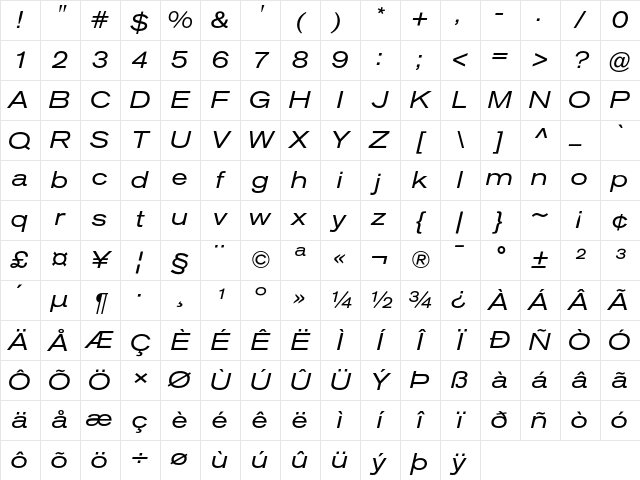
Akzidenz-Grotesk BQ Extended Italic
Style: Extended Italic
Design Context for Akzidenz-Grotesk BQ
Akzidenz-Grotesk BQ takes a clean, functional approach - its unadorned letterforms prioritise legibility and work reliably across screen and print environments. The slanted form adds forward momentum and visual energy.
Font Pairing: Works well alongside a characterful serif or display font that can carry the expressive load while Akzidenz-Grotesk BQ handles the functional copy.
Pro Tip: Use Akzidenz-Grotesk BQ for UI labels, navigation, and short-form body copy where clean legibility is the priority.